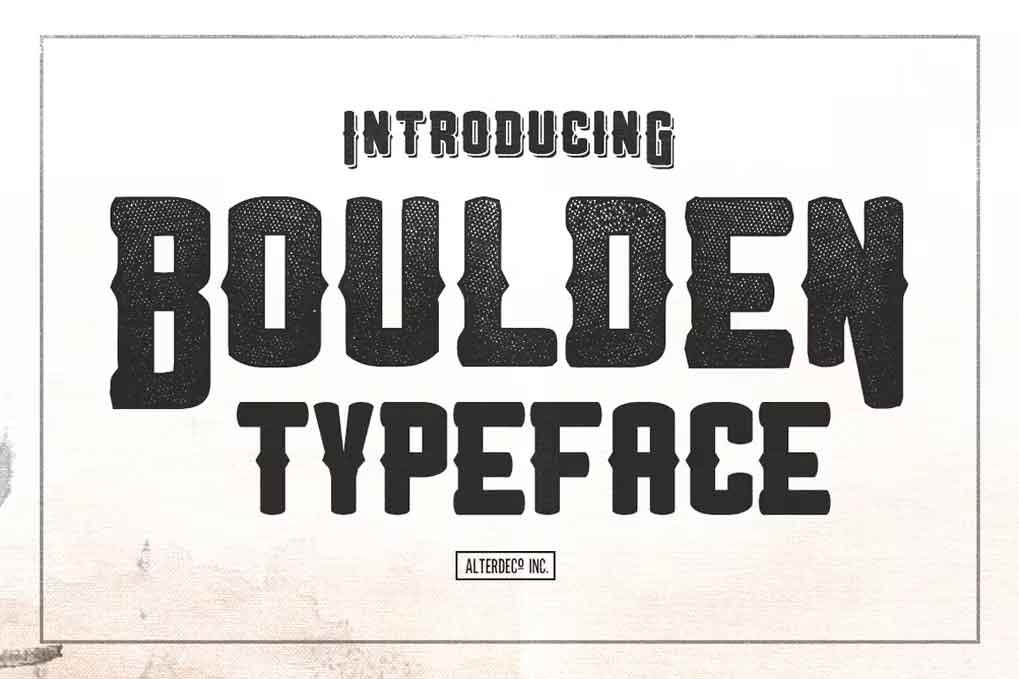
Boulden Typeface Font
Boulden is bold! all caps! perfect for your propaganda poster, or even a modern yet vintage graphic design. its available in 3 different styles that you can play with, regular clean, grunge, & shadow style.
Reports, white papers and book interiors hold the eye longer when the text face has real serifs; Boulden Typeface Font keeps that rhythm without looking old-fashioned.
Food, spirits and cosmetics brands lean on serif wordmarks to suggest age and care. Boulden Typeface Font gives that signal at wordmark size.
Set Boulden Typeface Font for the body of an award or a diploma and keep the recipient name in a script; the pairing is what makes a document feel official.
It sits in the Serif Fonts group and reads as bold, clean, modern, serif. That makes it a candidate wherever those qualities help: headings, packaging, social graphics and brand work. Set it at the size you plan to use before deciding.